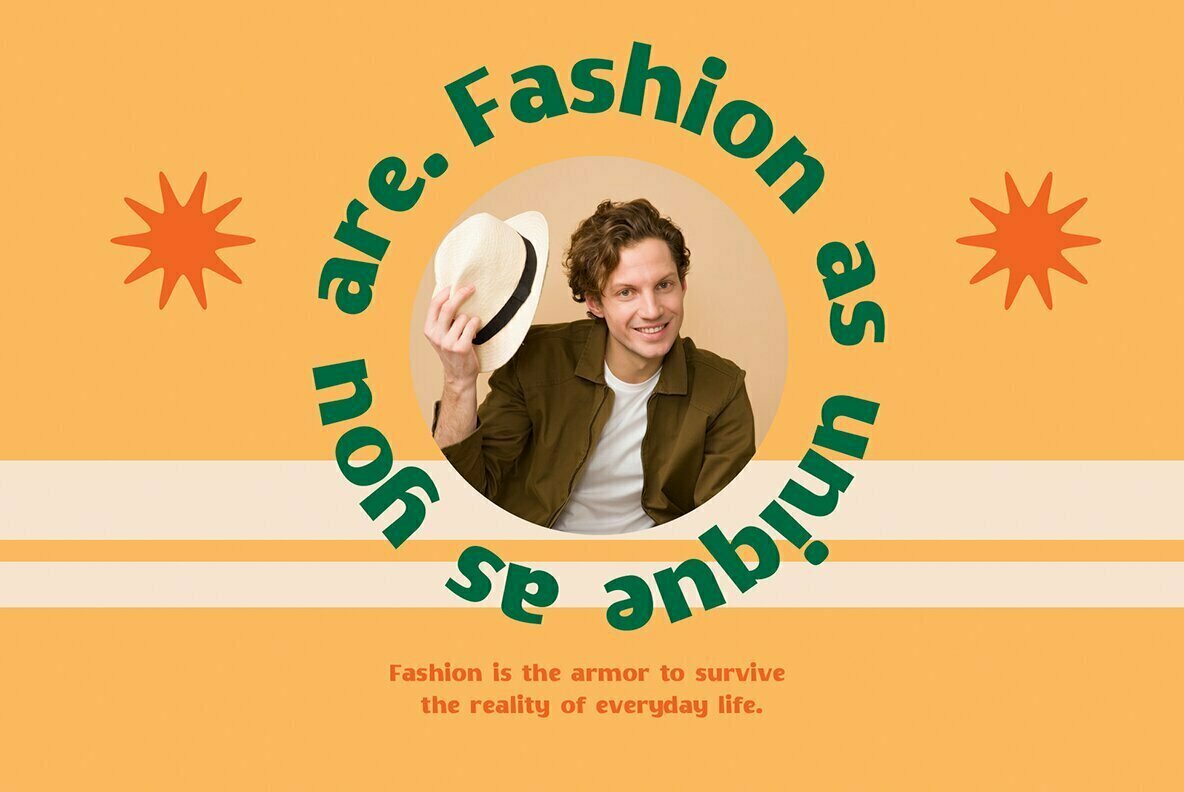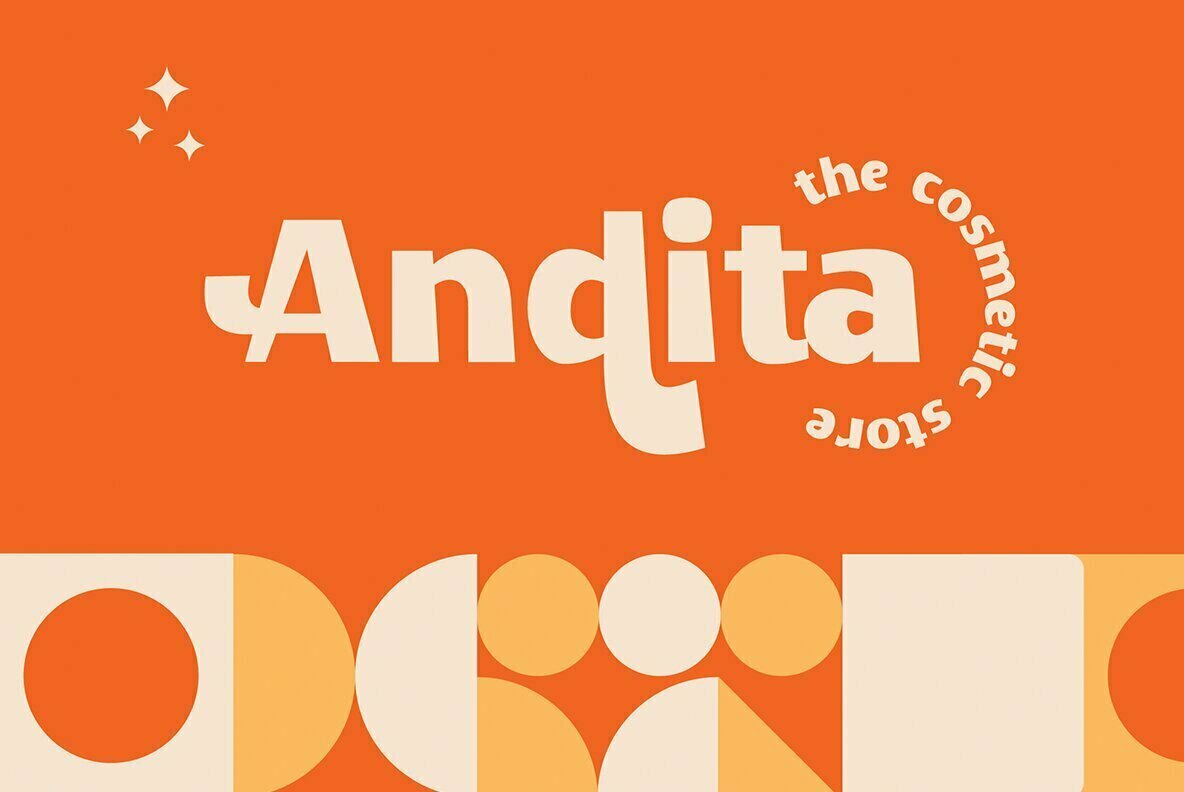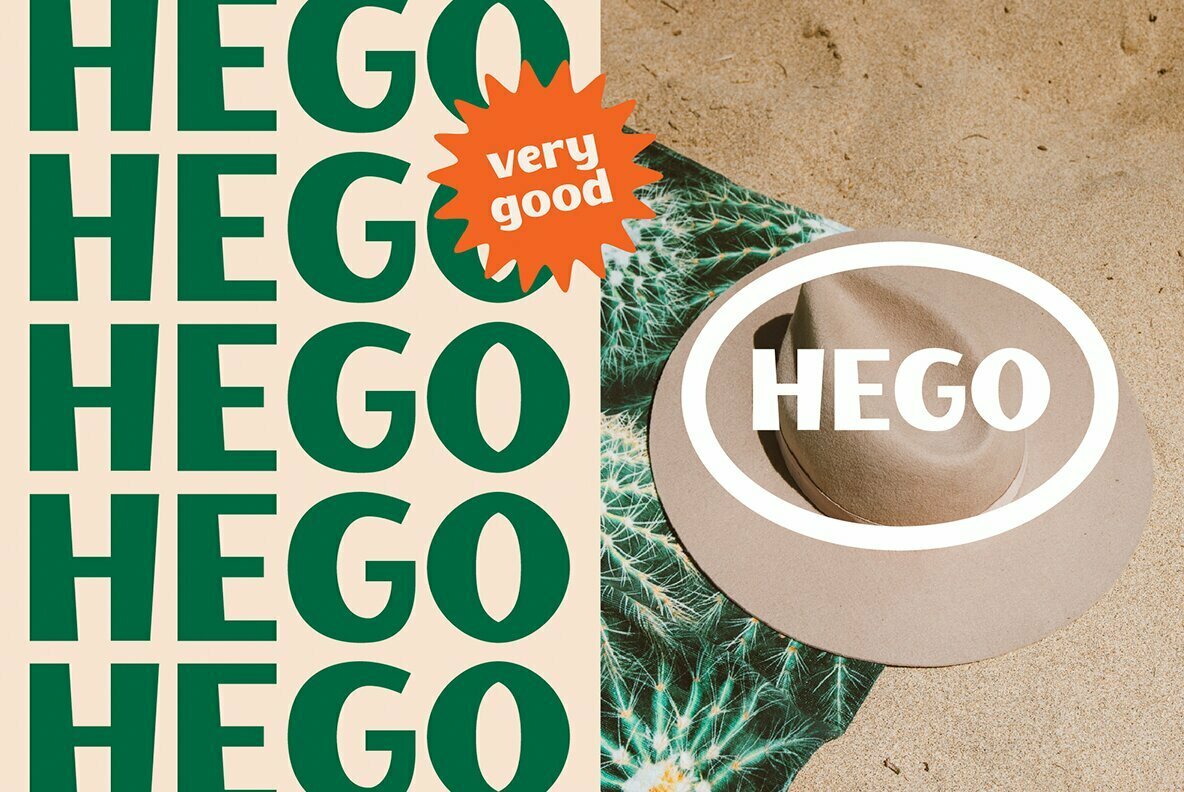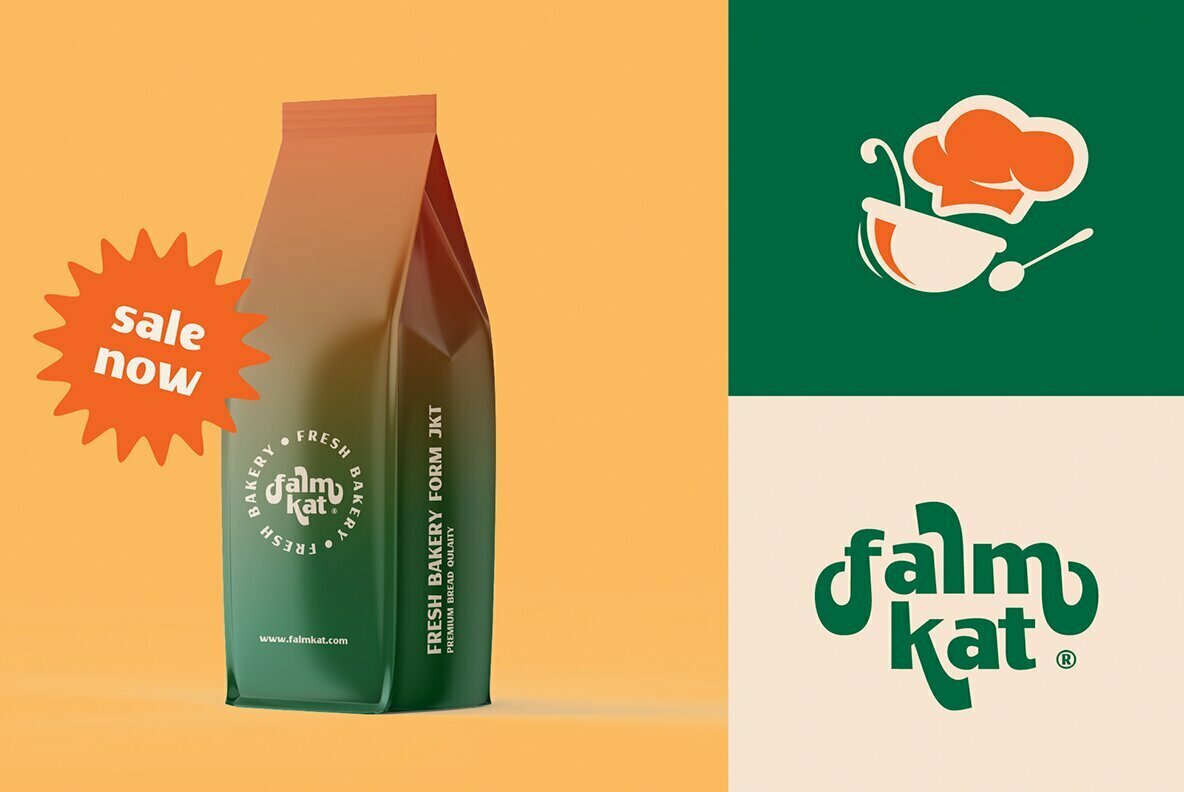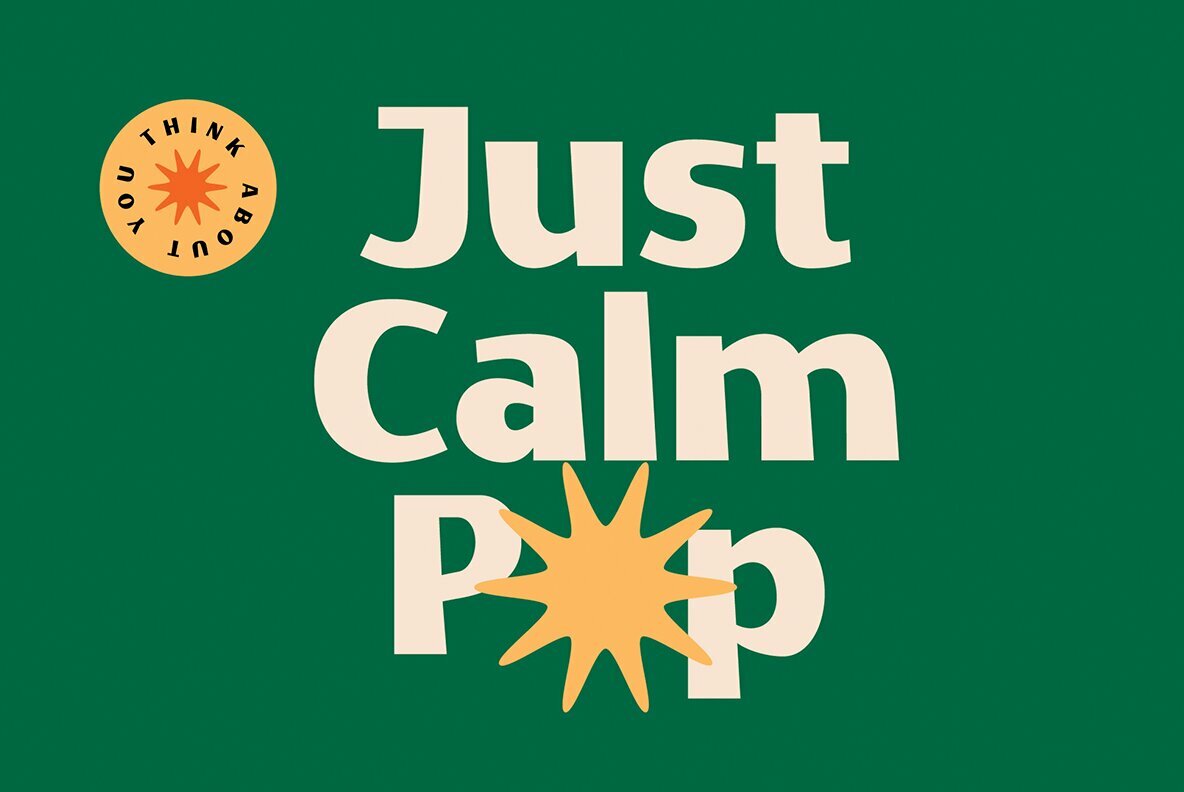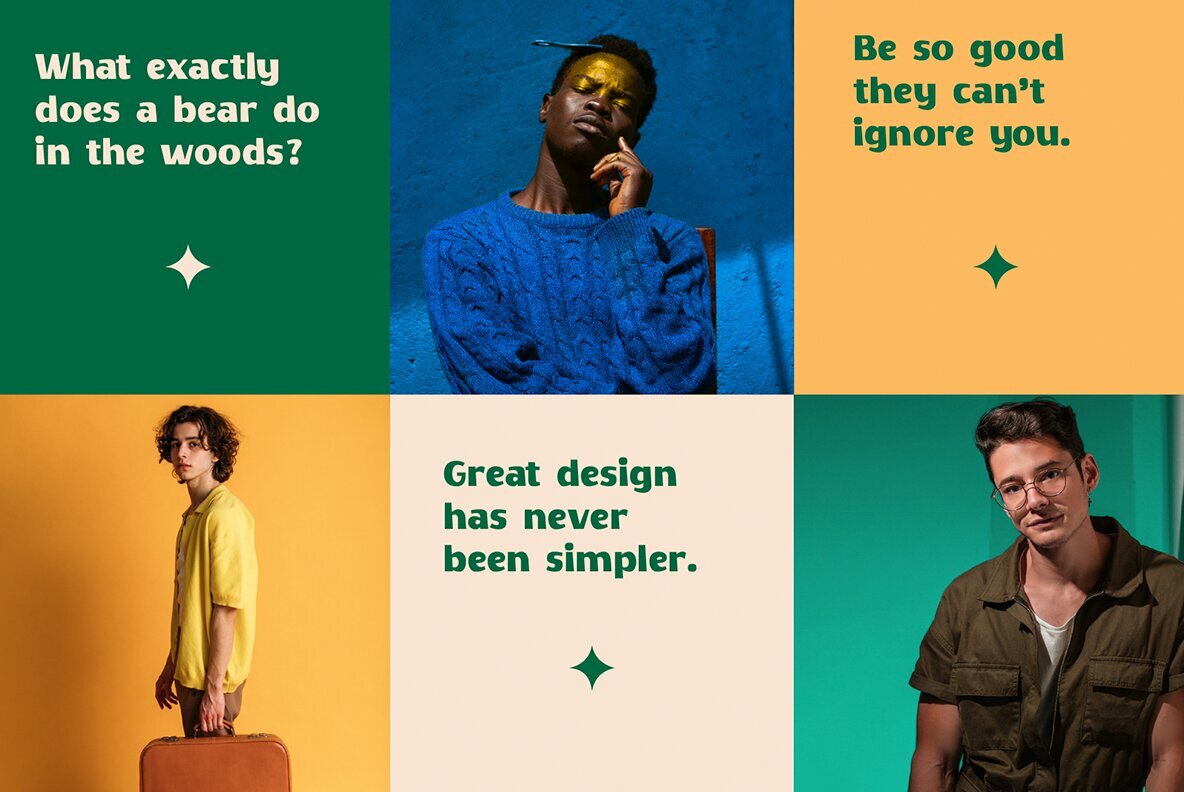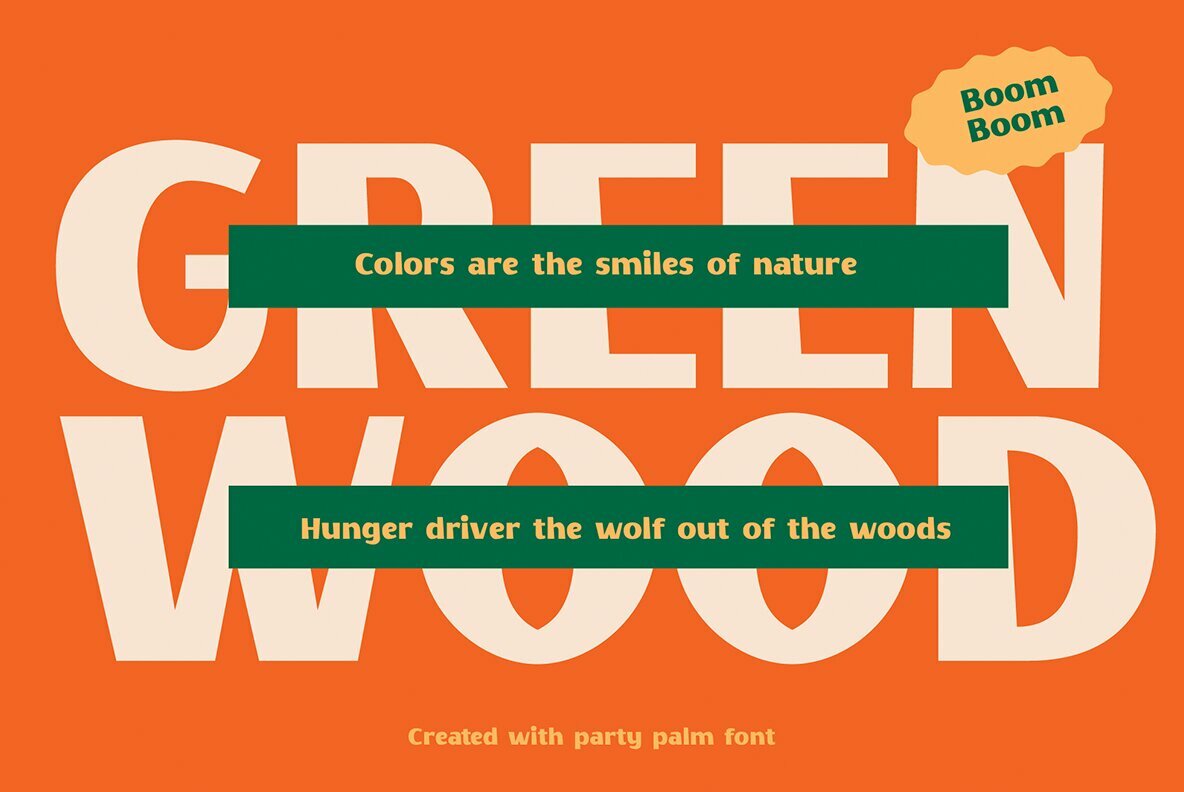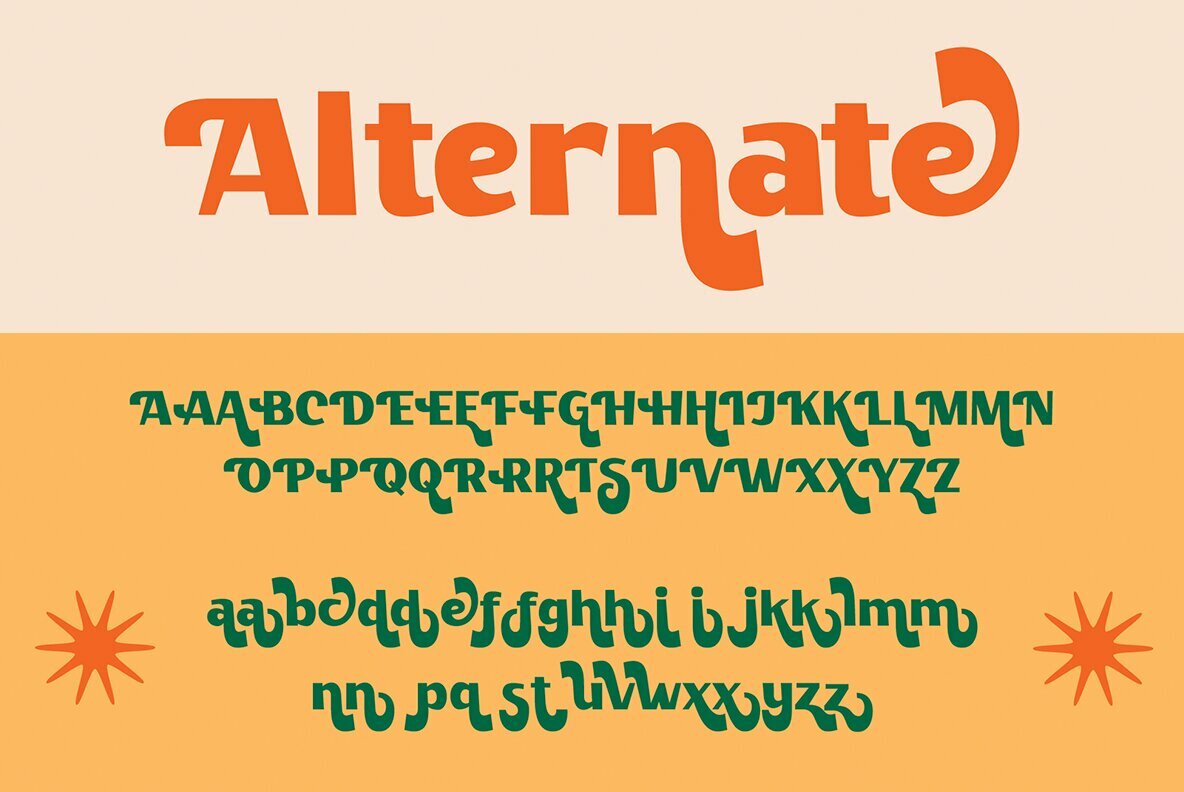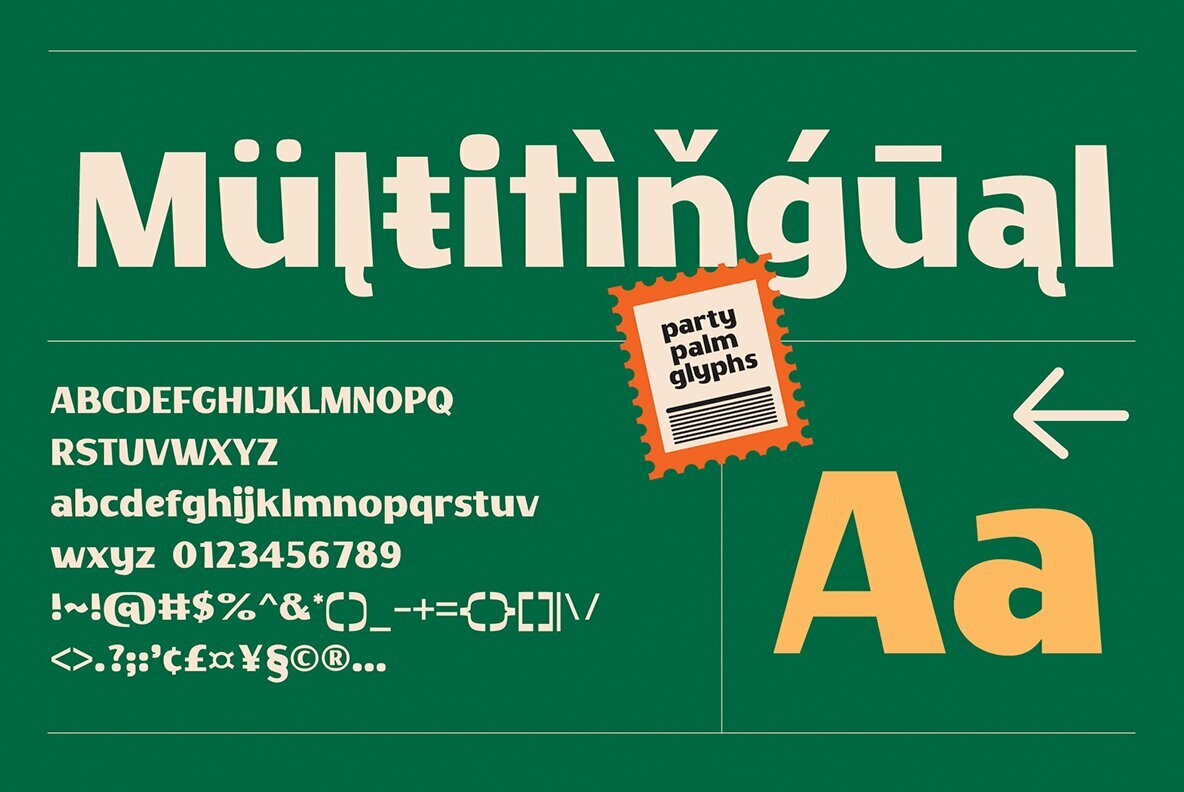
Party Palm Font
Party Palm
The Party Palm Retro Font is a thoughtfully crafted tribute to the vibrant design ethos of the 1980s and 1990s. This typeface captures the nostalgic essence of retro styling while seamlessly integrating modern elegance, making it a versatile choice for designers looking to evoke a sense of classic sophistication. Bold yet graceful, Party Palm is ideal for projects that require a touch of nostalgia balanced with contemporary aesthetics. Its graceful strokes and balanced serifs offer a unique blend of past inspiration and current design trends.Party Palm: Retro Elegance with Modern Flair
Party Palm is perfect for making a stylish statement, drawing on the familiarity of the past while looking to the future with a modern twist.